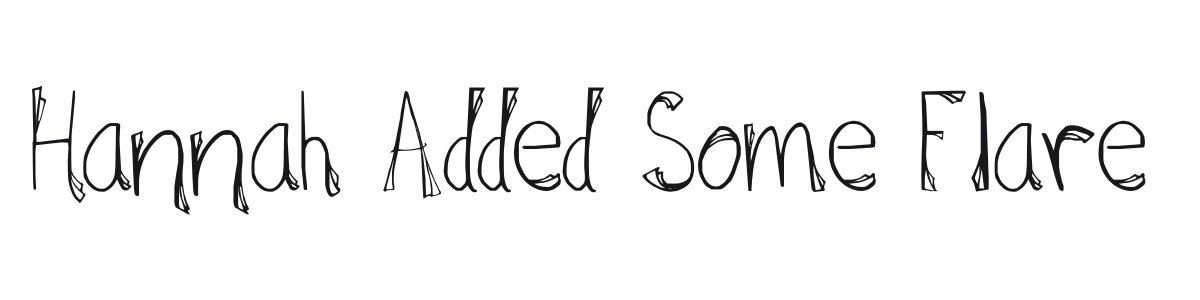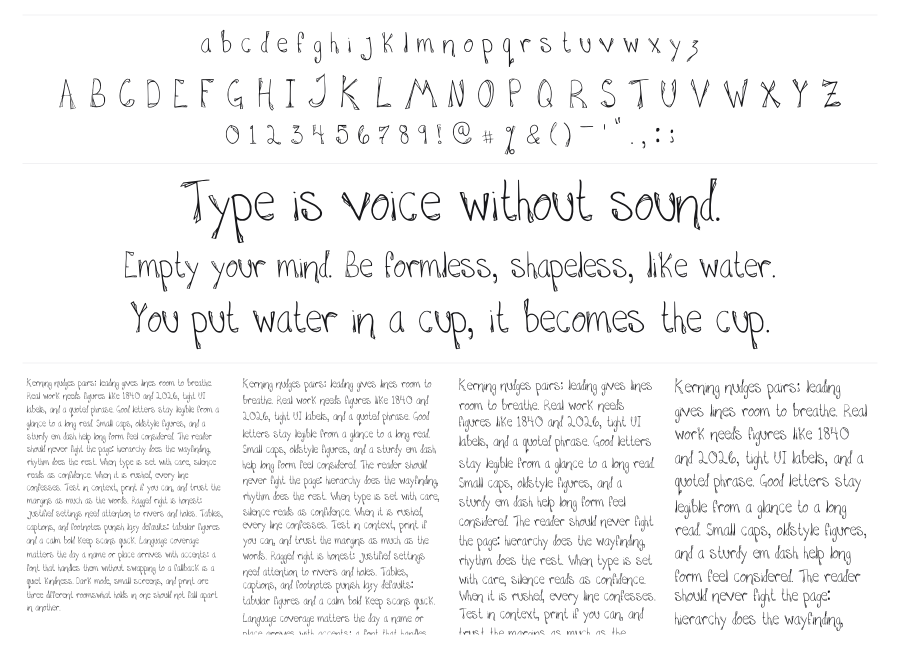
Hannah Added Some Flare
Hannah Added Some Flare is a hand-drawn typeface with wispy, ink-flick terminals that give it a spontaneous, sketched energy. The irregular stroke weights and bouncy baseline feel genuinely hand-lettered rather than cleaned up. It suits projects that want a personal, crafty touch without tipping into formal calligraphy.